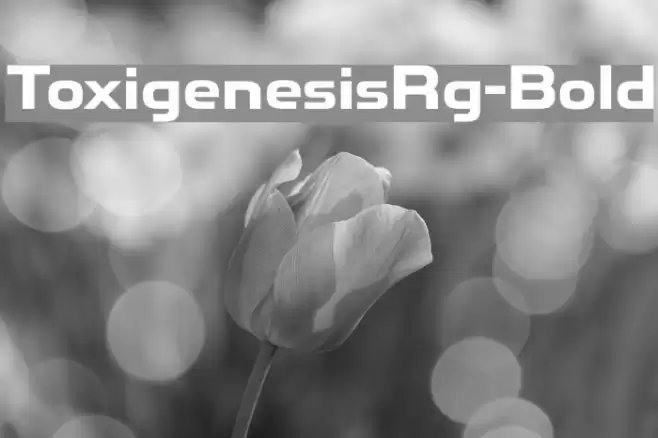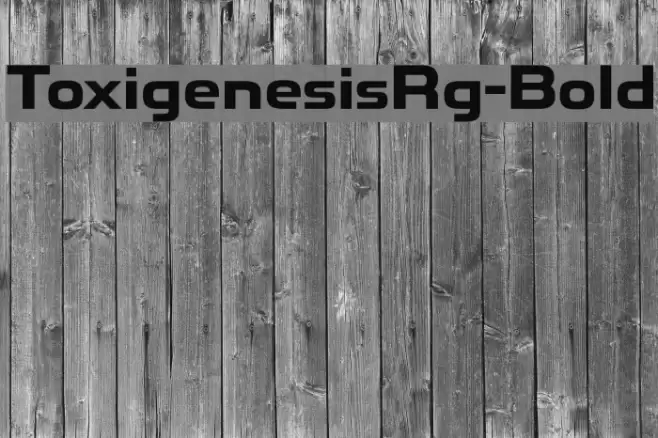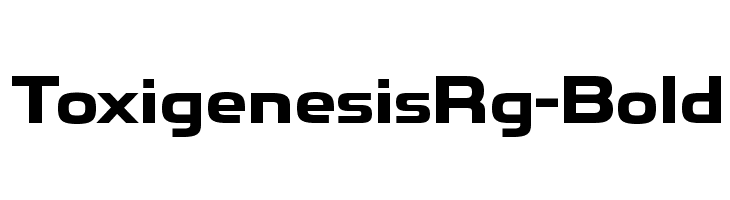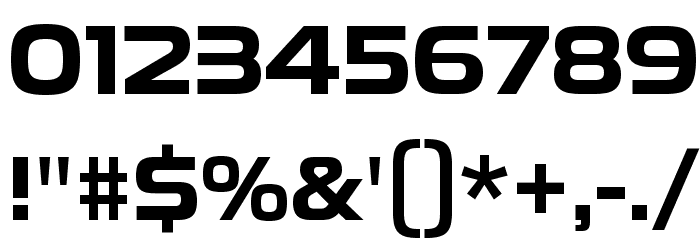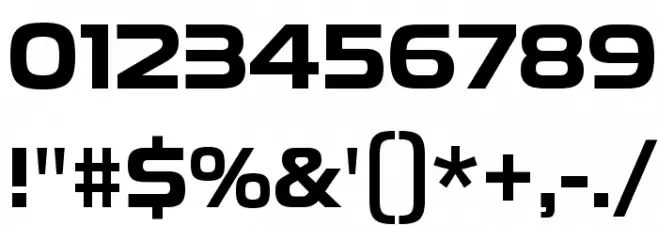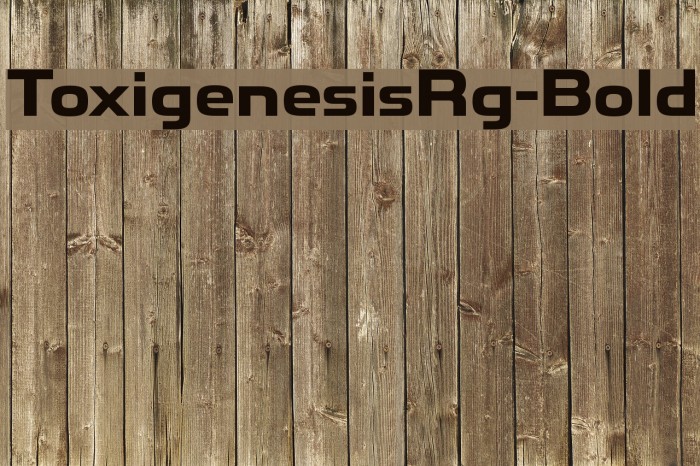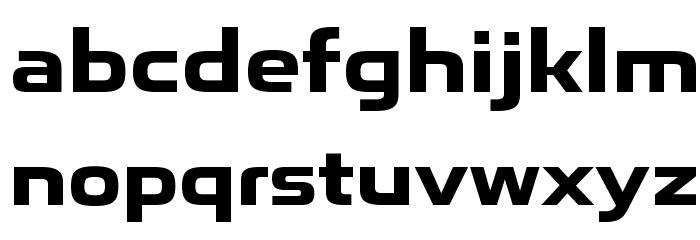
ToxigenesisRg-Bold Font
ToxigenesisRg-Bold Description
This font exhibits a bold and modern aesthetic, characterized by its strong geometric shapes and clean lines. The uppercase and lowercase letters maintain a consistent width, contributing to a uniform appearance. The numerals are equally bold, ensuring readability and impact. Special characters are designed with the same attention to detail, making them suitable for a variety of applications. The overall design is sleek and contemporary, ideal for projects that require a strong visual presence.
A bold, modern font with geometric shapes and clean lines from Uncategorized fonts.
- Proposed Projects: Ideal for branding, advertising, headlines, and digital media where a strong, modern look is desired.
- Use Case: Headlines, Logos, Branding